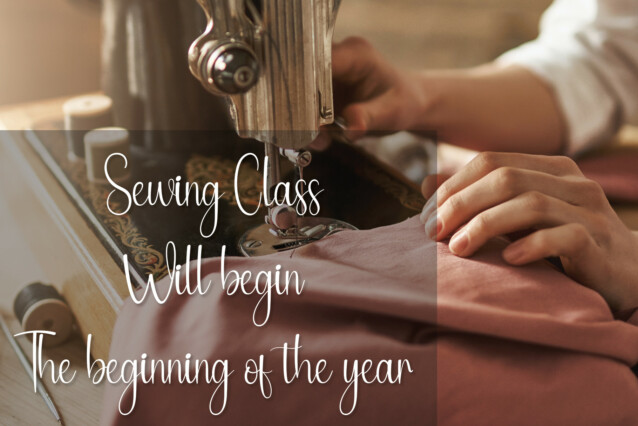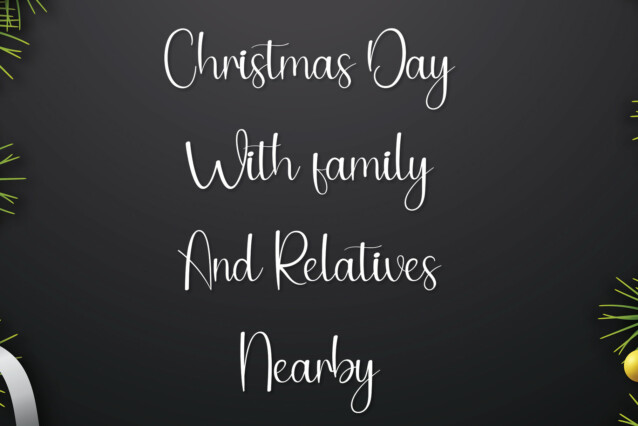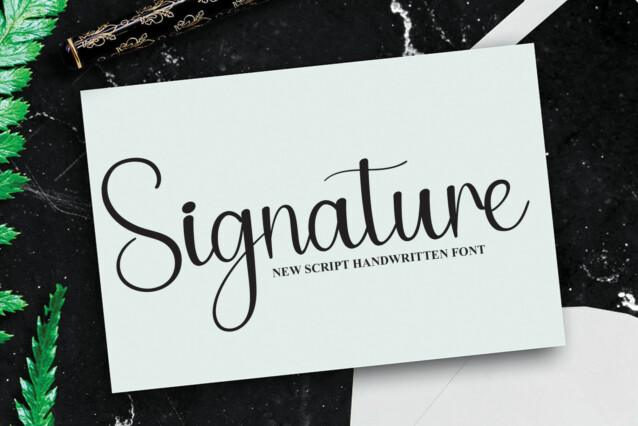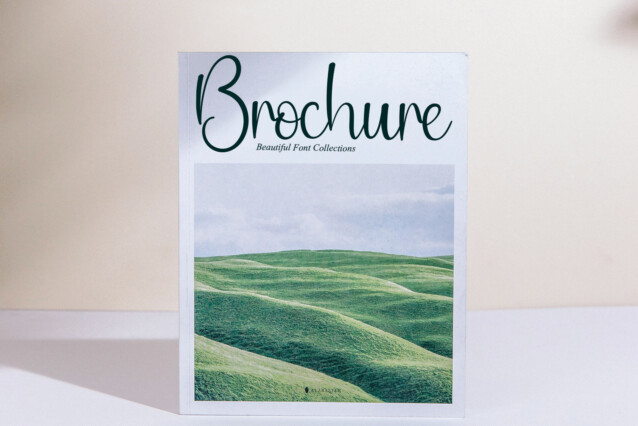
Fourteen Script Font
Fourteen Script Font is a cursive and elegant handwritten font. Its latest style letters are perfect for wall displays, wedding invitations, social media post logos, advertisements, product packaging, product designs, labels, photography, watermarks, invitations, stationery, and any project that requires a taste for handwriting.